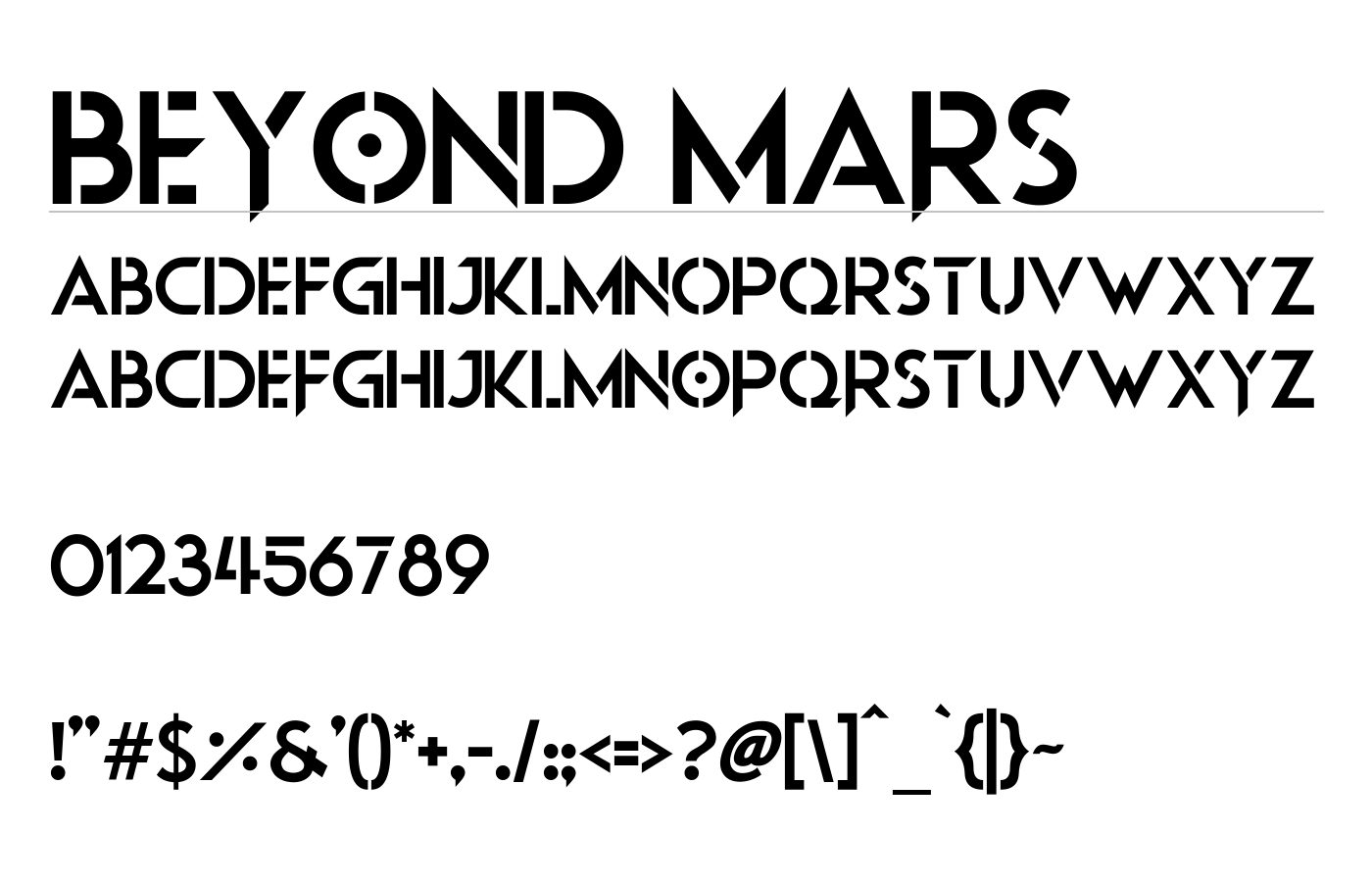
Beyond Mars is a bold, geometric sans serif font with a futuristic and sci-fi inspired style. Its sharp angles, distinct cutouts, and strong contrast create a modern, tech-savvy appearance that works great for bold headlines, logos, and branding in creative, technology, or space-themed projects. This font’s unique letterforms offer a striking visual identity, making it perfect for making an impactful, forward-thinking statement.
Beyond Mars Font